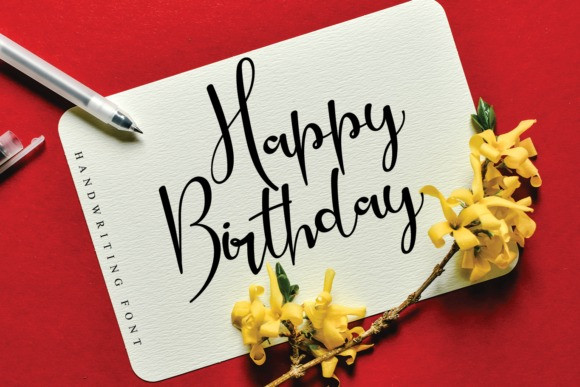
Happy Birthday Typeface
Happy Birthday Font is a sweet and flowing script font. Fall in love with its cute and joyful style and use it to create gorgeous wedding invitations, beautiful stationary art, eye-catching social media posts, and much more!